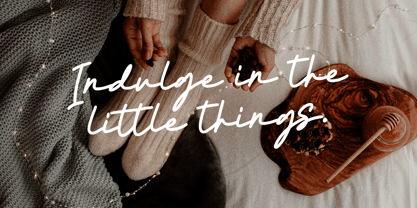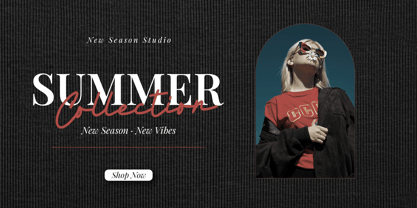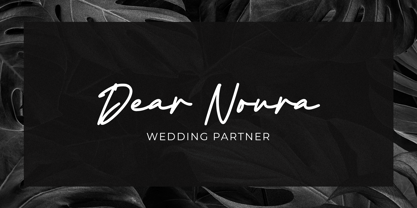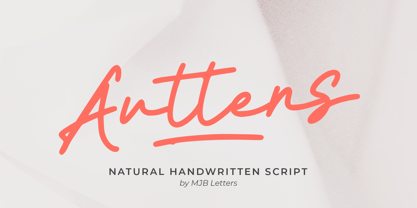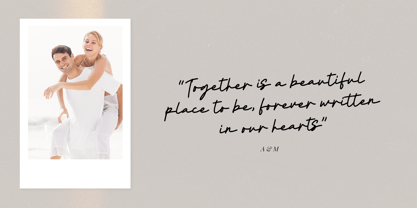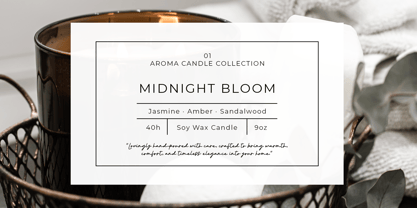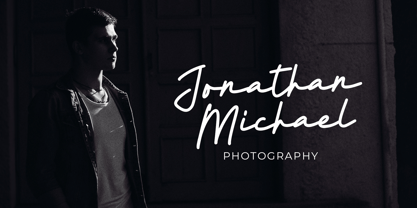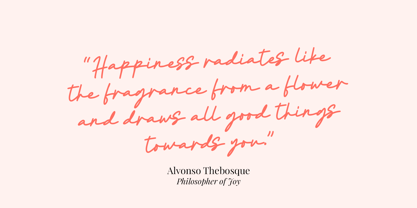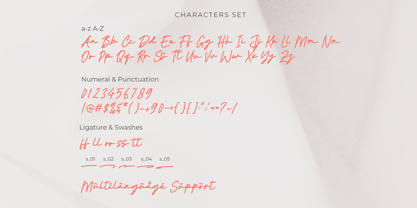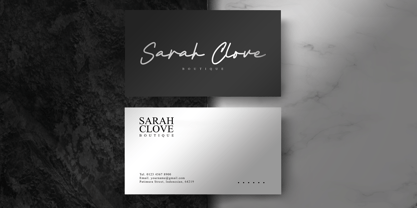
Auttens
by MJB Letters
The Auttens Font Family was designed by Muhammad Mujibulloh and published by MJB Letters. Auttens contains 1 styles. More about this family
Anttens is a modern handwritten script font crafted to capture a natural writing flow with a clean, elegant touch. Inspired by real handwriting strokes, this font delivers an authentic and emotional feel while remaining highly readable and versatile. Whether you are working on branding projects, wedding invitations, photography logos, quotes, packaging, or editorial designs, Anttens adapts beautifully across both digital and print media. The font includes a complete set of uppercase and lowercase letters, numerals, punctuation, ligatures, and stylish swashes that allow you to create dynamic and personalized typography with ease.
Designers: Muhammad Mujibulloh
Foundry: MJB Letters